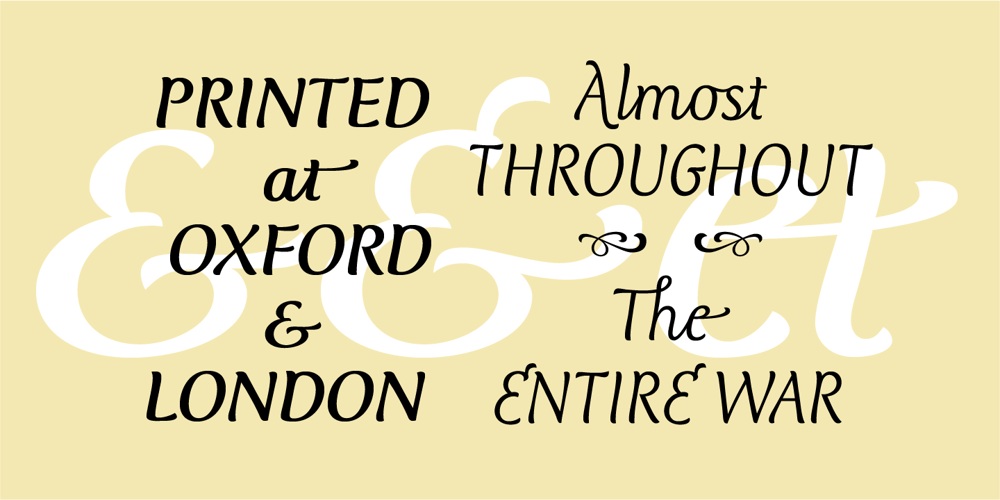
Club Type Script Pro
Club Type Script Pro font
Club Type Script Pro Font Family was designed by Adrian Williams and published by Club Type. Club Type Script Pro contains 2 styles and family package options. A quill pen-like joined script typeface which echoes the cartoon lettering of 17th Century court papers during the period of the English Civil war. A nifty feature of this font is that if you enter a vertical bar ‘|’ character, it will turn off the exit stroke of a joining character.